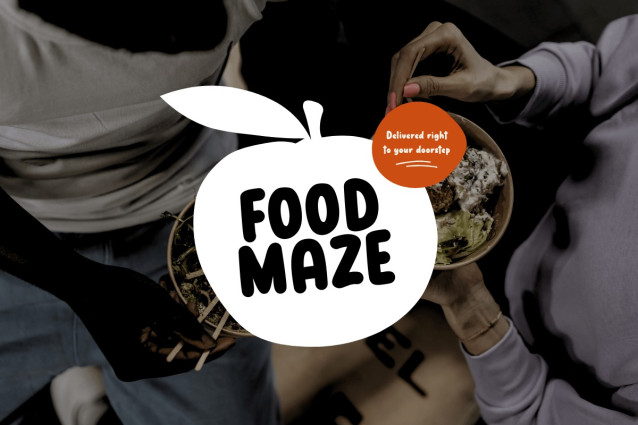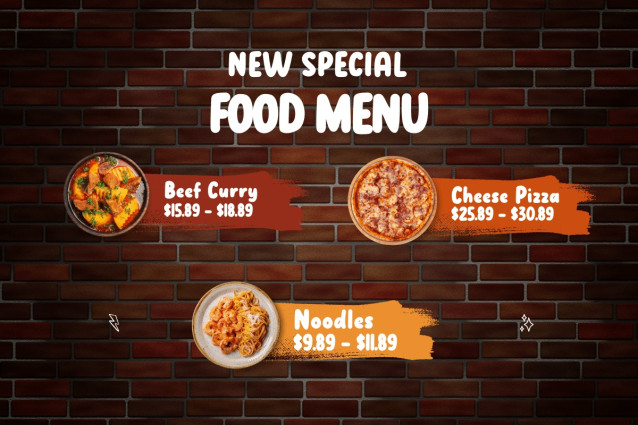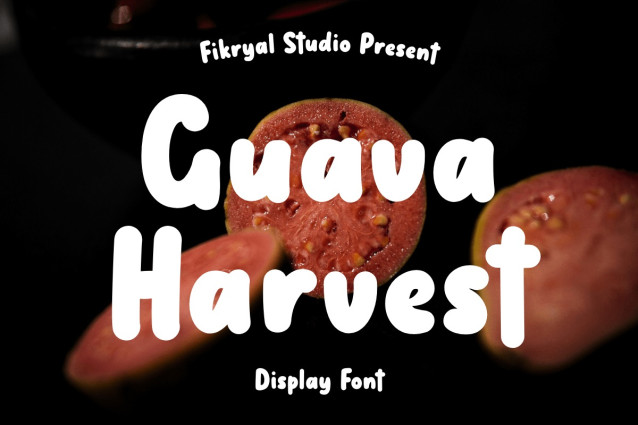
Guava Harvest Font
Guava Harvest Font is a fun and cheerful handwritten display font that brings a burst of personality to your creative projects. With its bouncy letters and organic strokes, this font feels like a handwritten note from a sunny day at the farmer’s market.
Perfectly imperfect, Guava Harvest is great for branding, packaging, posters, social media graphics, kids’ products, and anything that needs a touch of playful charm. Whether you’re designing for a handmade soap label or a cozy café menu, this font adds a warm and approachable vibe.